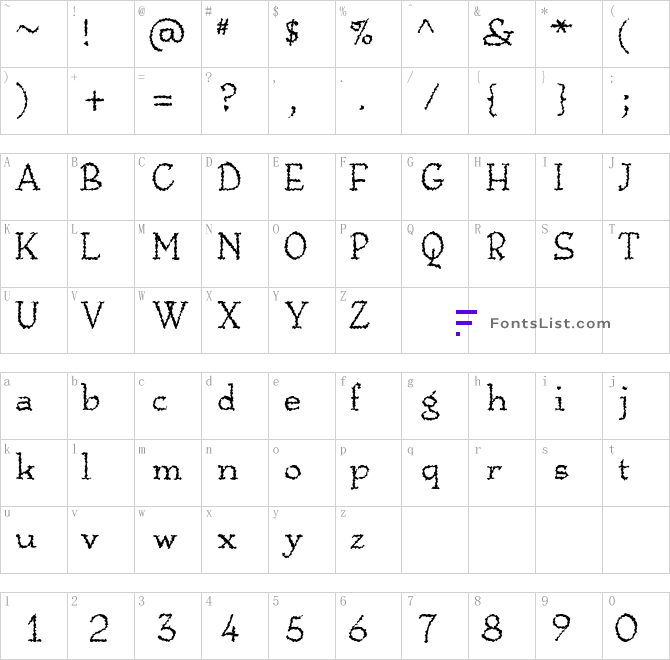
- Font Name:AnarckhieRagged
AnarckhieRagged.ttf is a very beautiful artistic font, AnarckhieRagged.ttf is widely used in the design and printing of various books and pictures,AnarckhieRagged.ttf has a strong visual impact,AnarckhieRagged.ttf is a commonly used font in newspapers, magazines and books, and is used in posters, e-commerce Poster design, store design, logo design, font design and other fields.AnarckhieRagged.